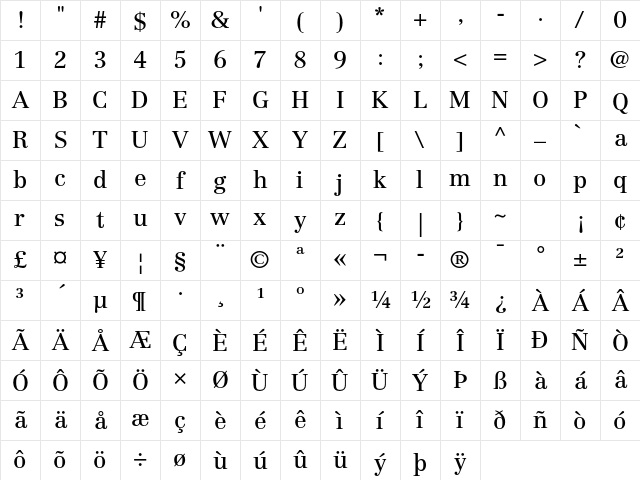
Centennial LT Std 55 Roman
Style: 55 Roman
Design Context for Centennial LT Std
Centennial LT Std is a composed and adaptable typeface that performs quietly and consistently across a wide range of design contexts. Its slender proportions lend an understated elegance to any composition.